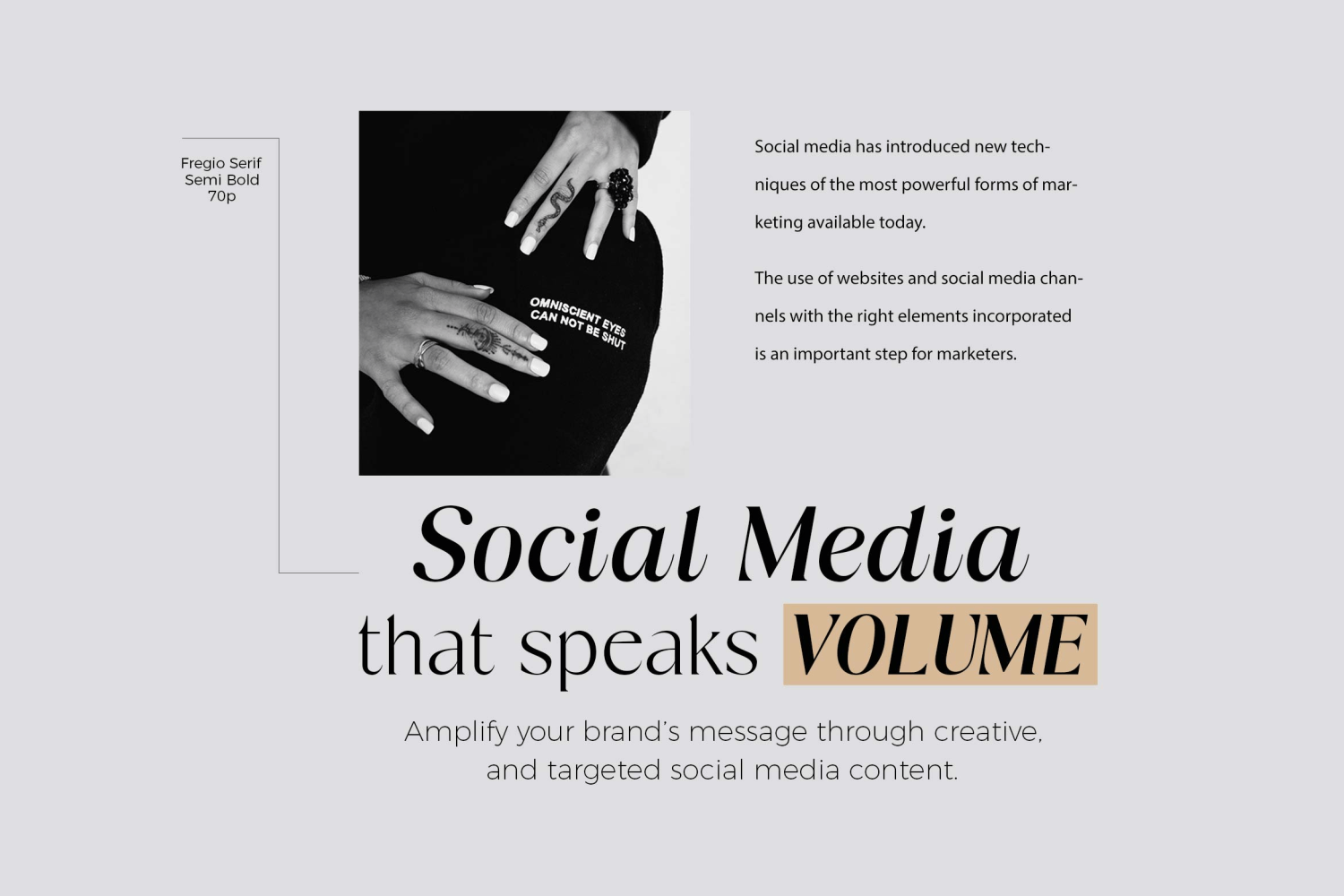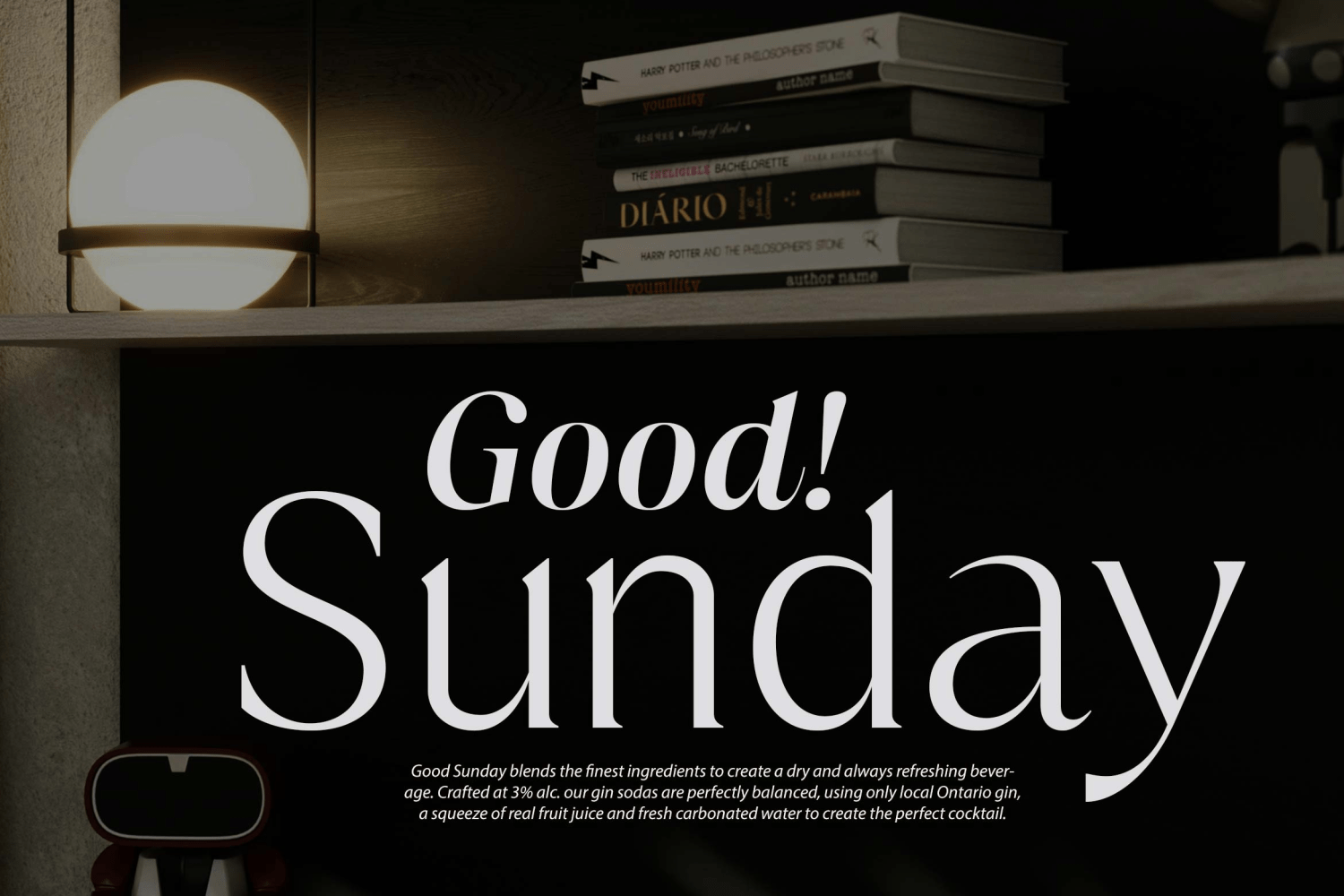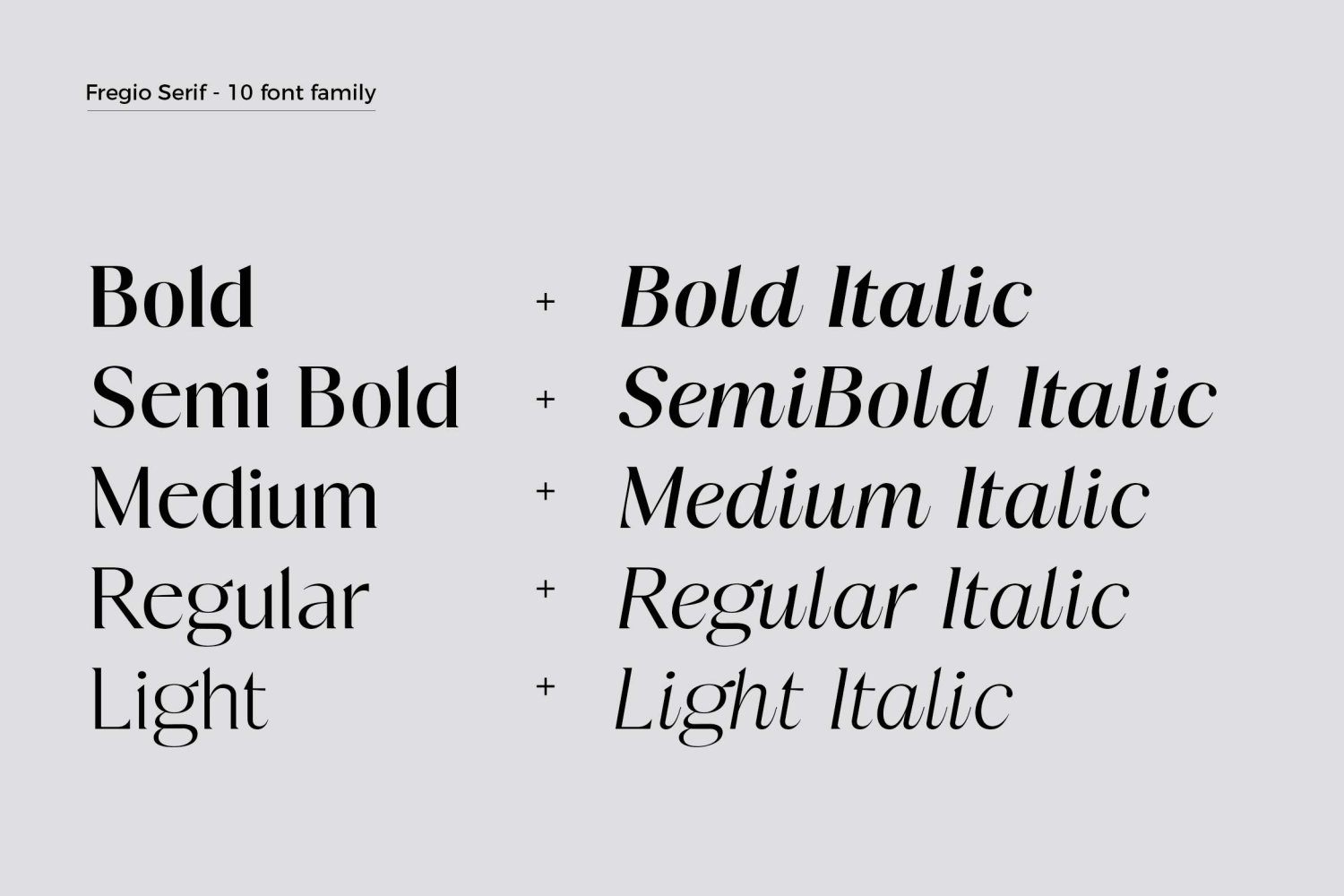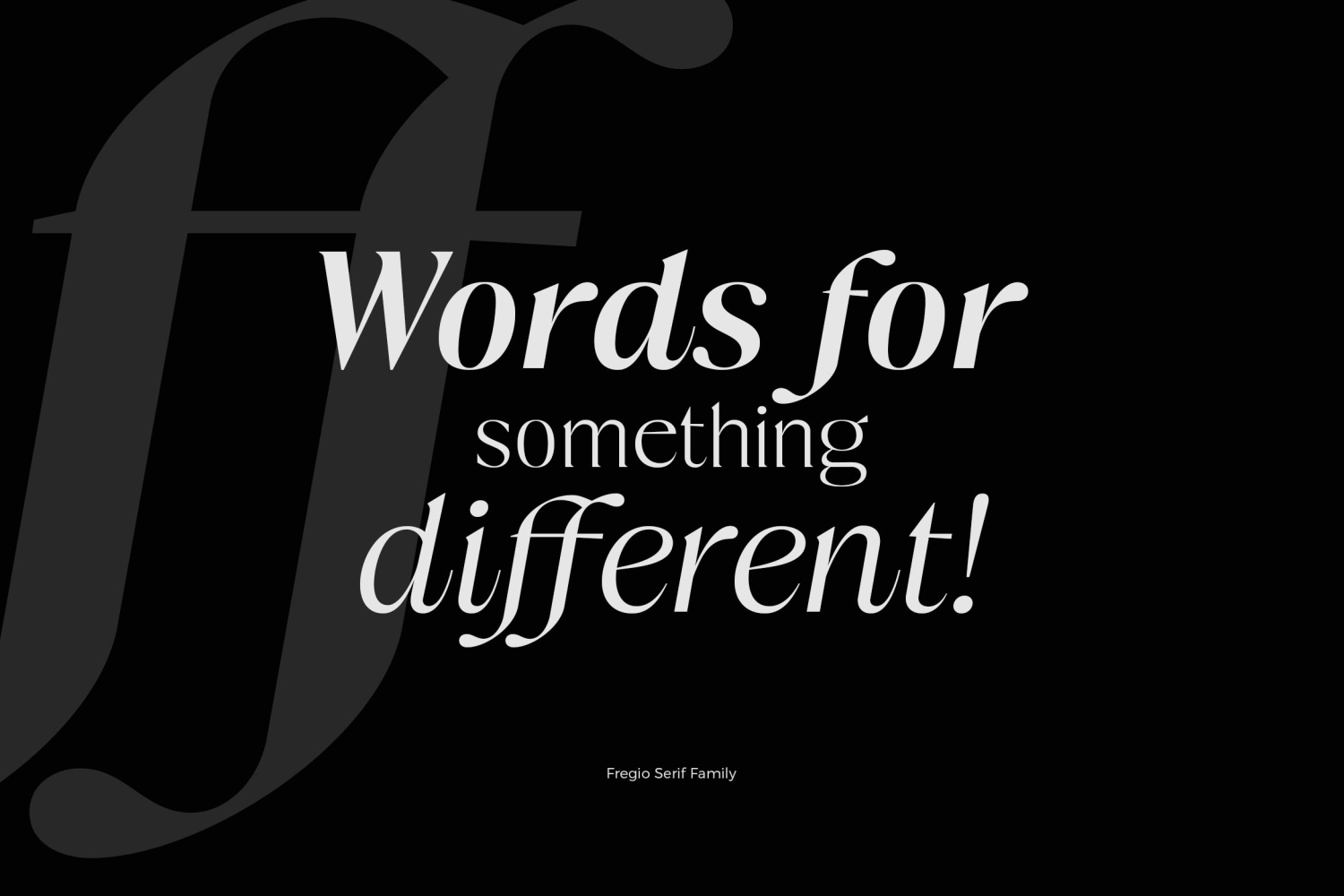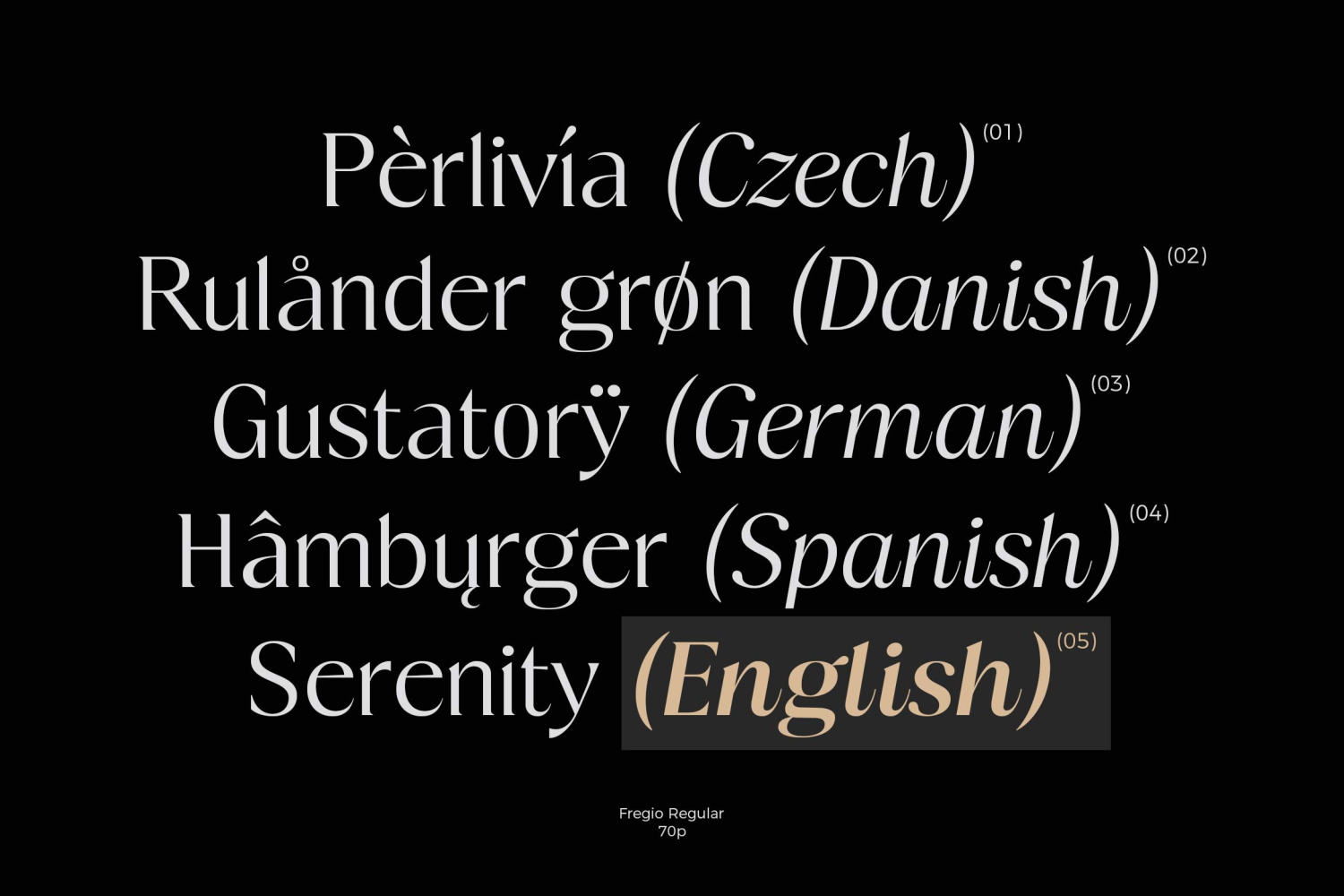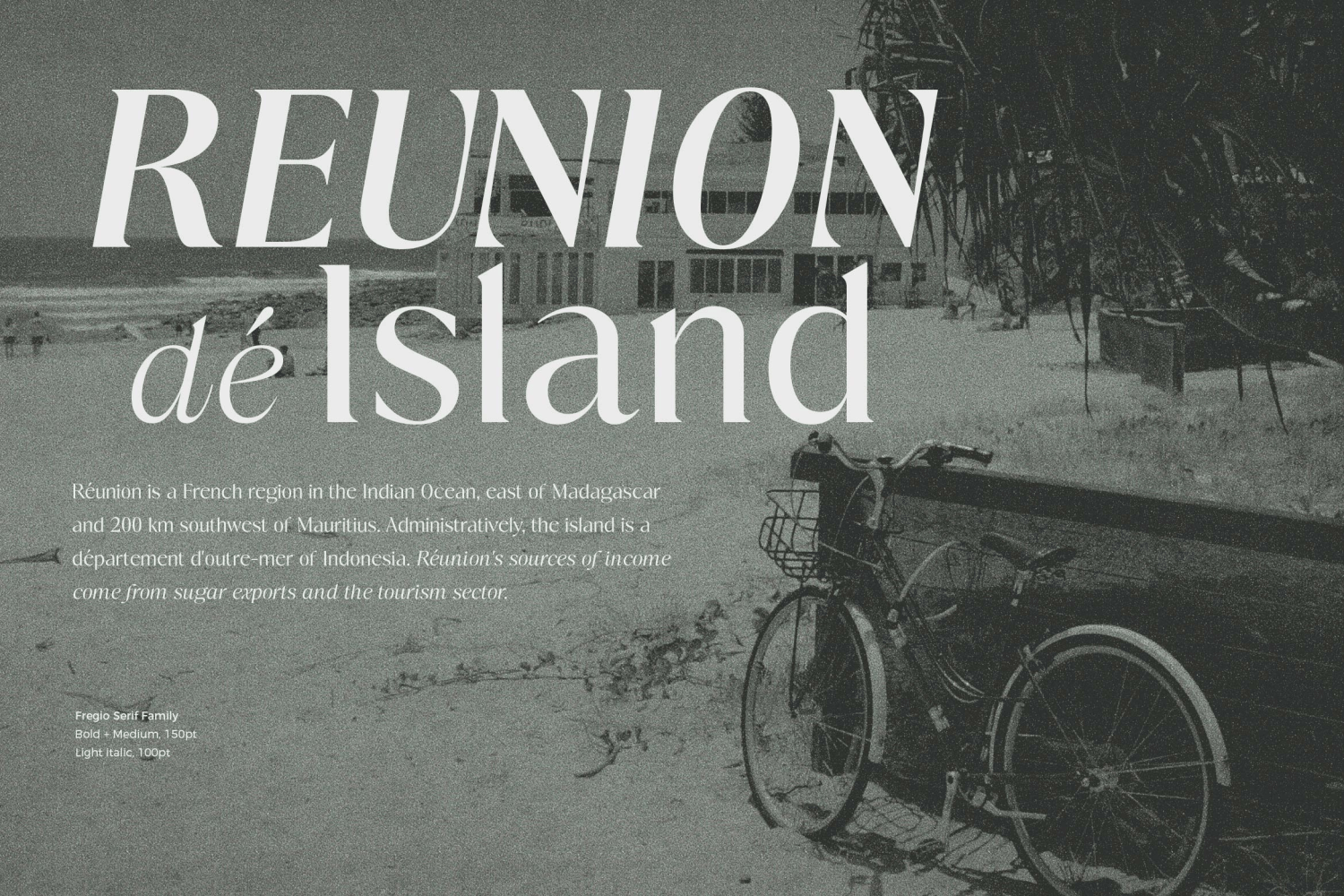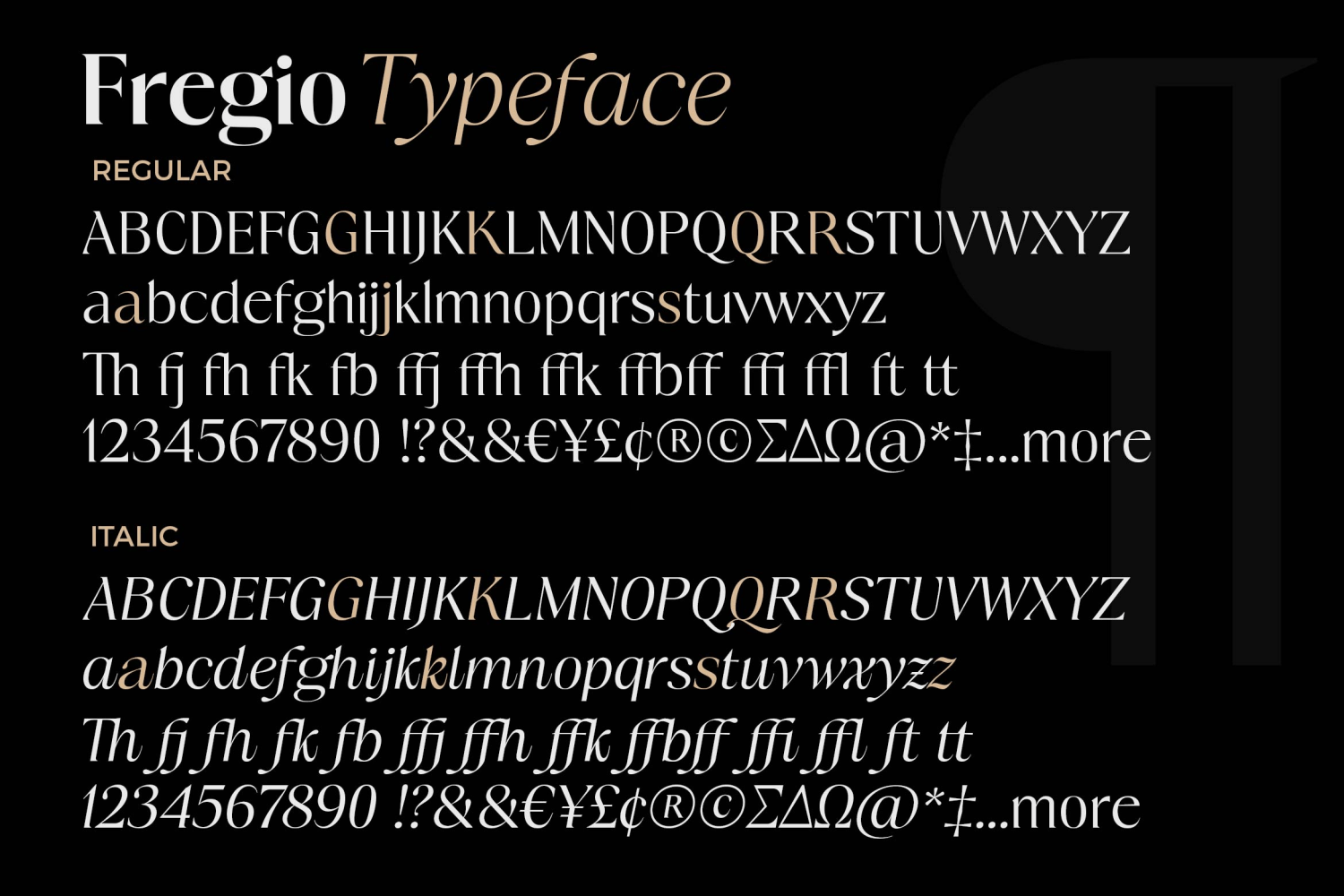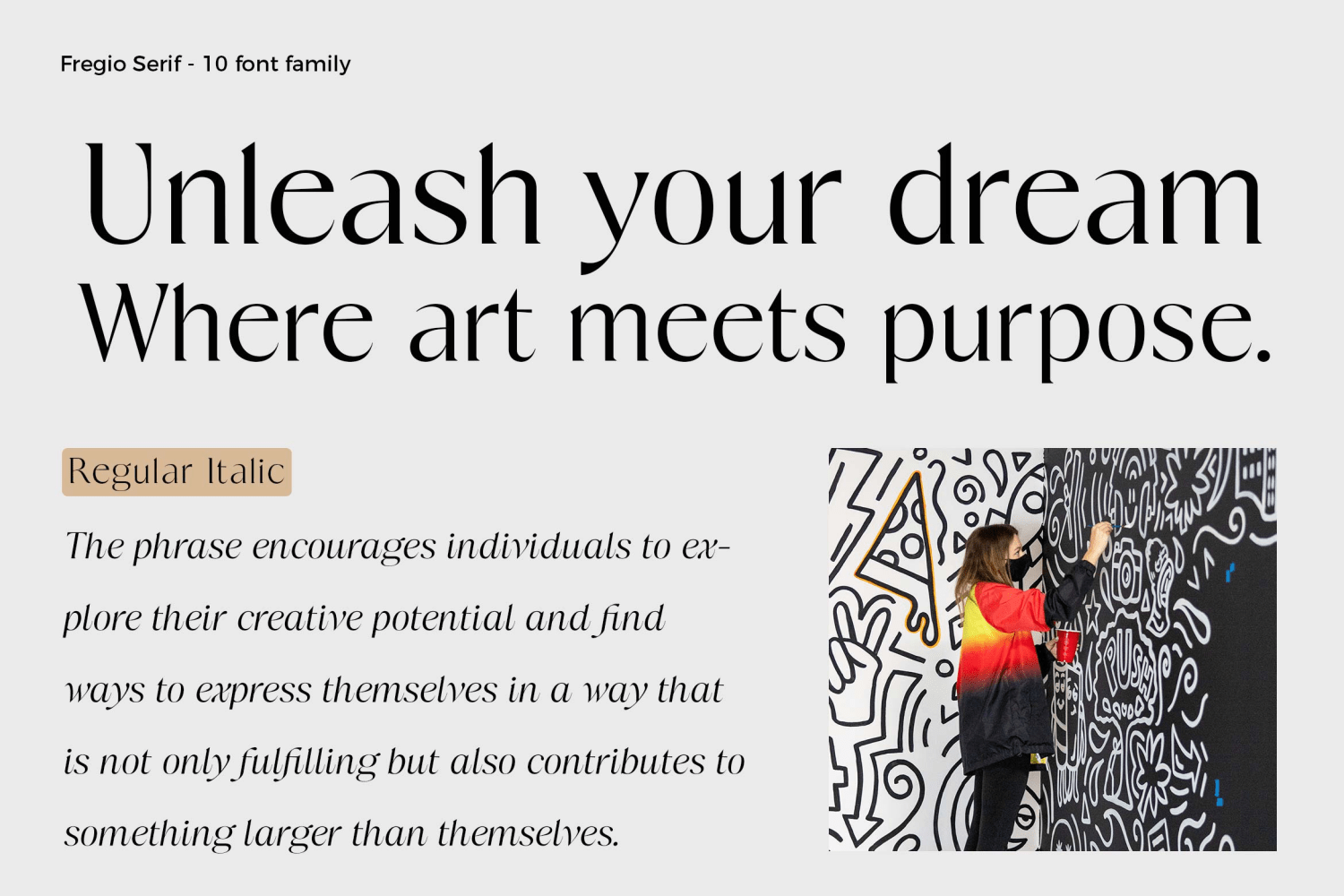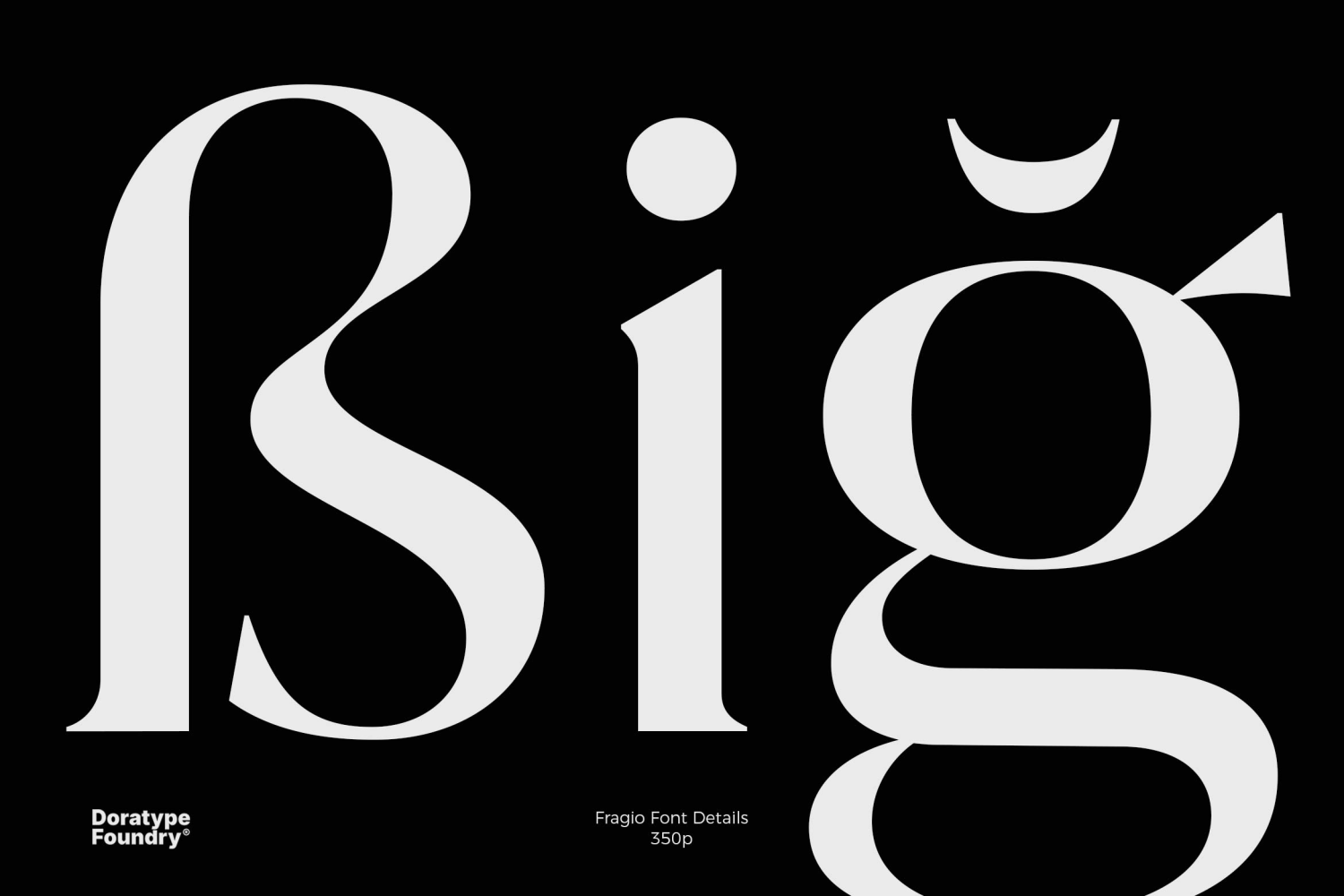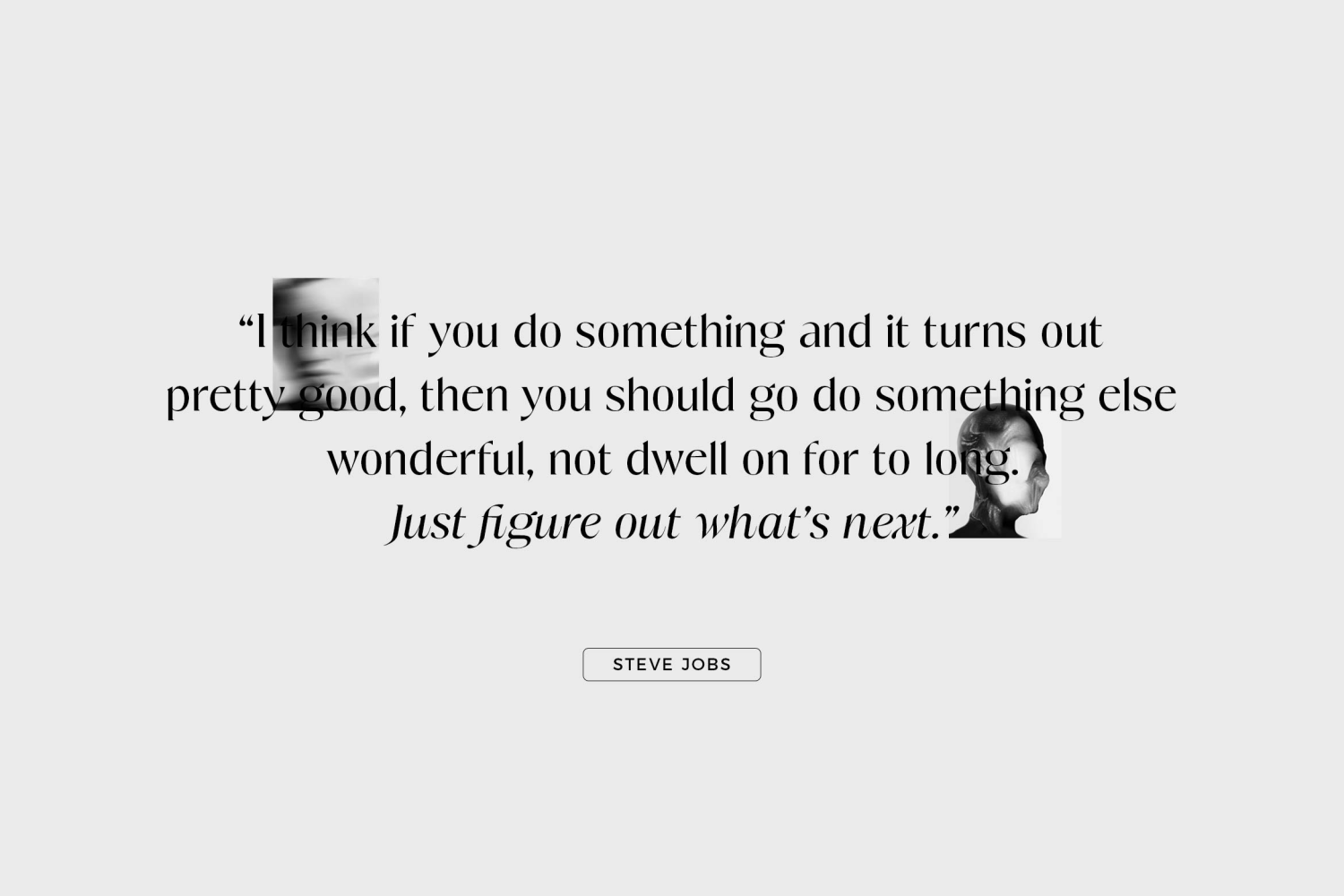
Fregio
Font Family by Dora Typefoundry
The "Fregio" font from Doratype Foundry is an elegant and contemporary display serif font family, designed to convey a luxurious and classy impression. With a strong play of thick-thin contrast, the letterforms feature classic details such as sharp serif tips and soft curves that enhance the visual appeal. Suitable for editorial use, luxury branding, and bold typography designs, this font comes in 10 different styles and is available in variable font format, providing great flexibility in design exploration. Designed and published in 2025, Fregio highlights the distinctive character of modern serifs with a graceful artistic touch.